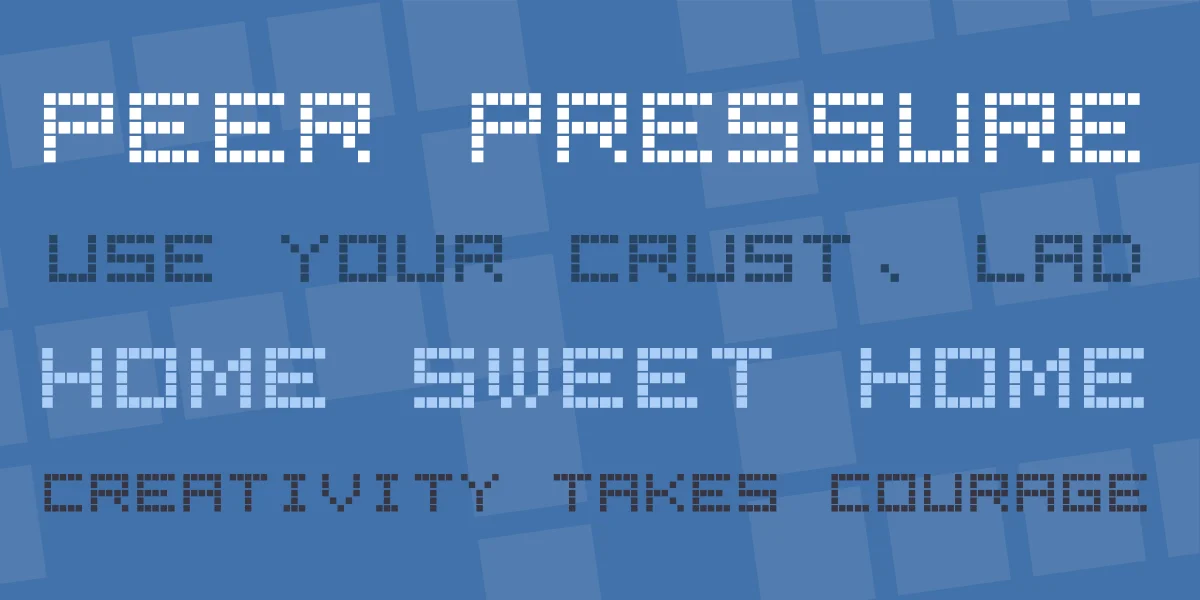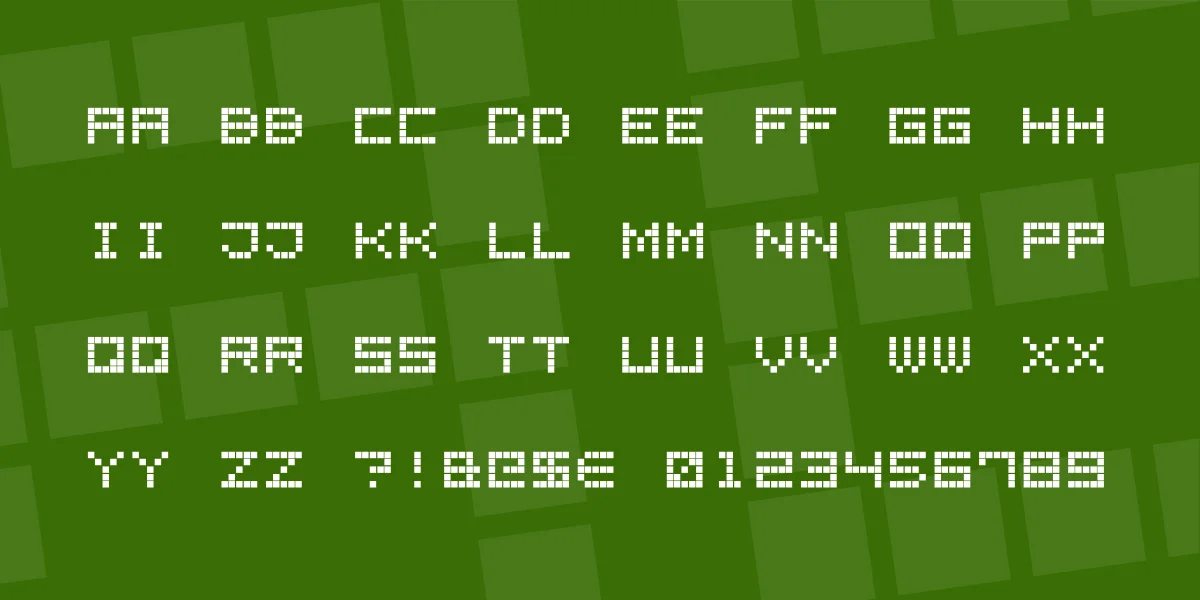
This is original font created in style a LED (Light Emitting Diode) matrix 8*8 units. Native size is 25 points. Cyrillic code page is supported. The font LED Display7 is freeware for home use only, freeware software (credit needed) and for your education process. Use this link to buy the license. Please enter font name in web form.